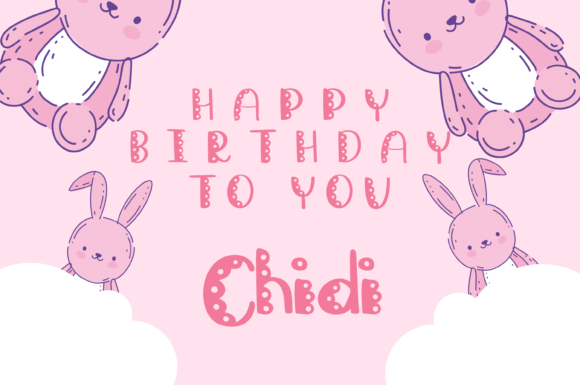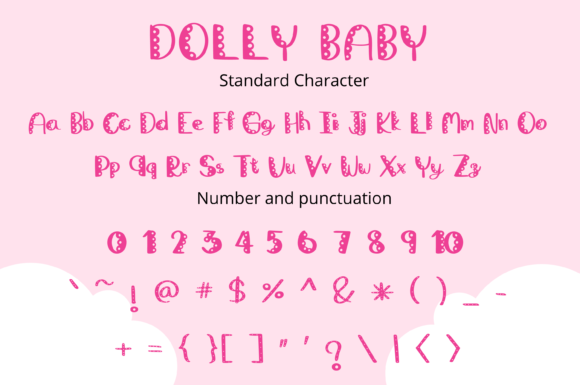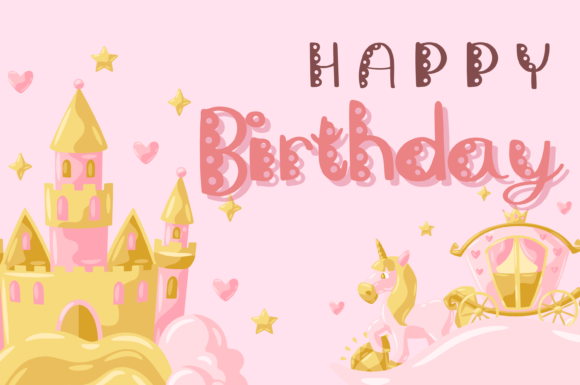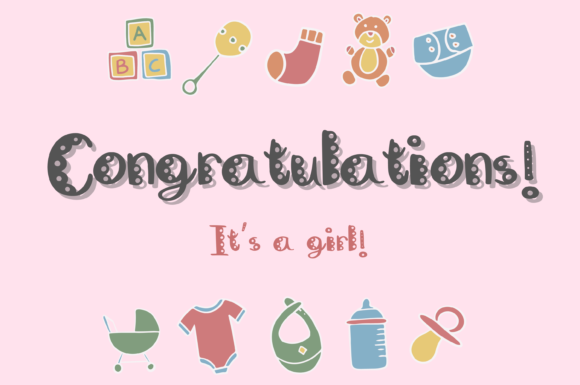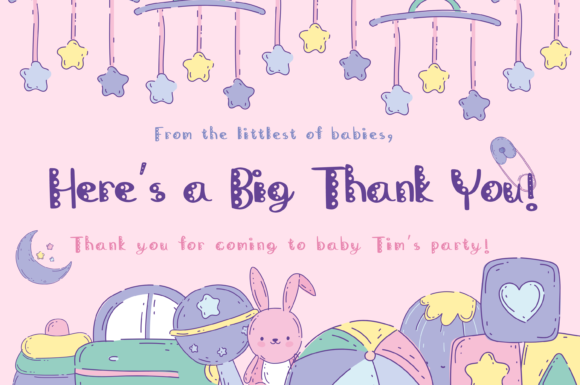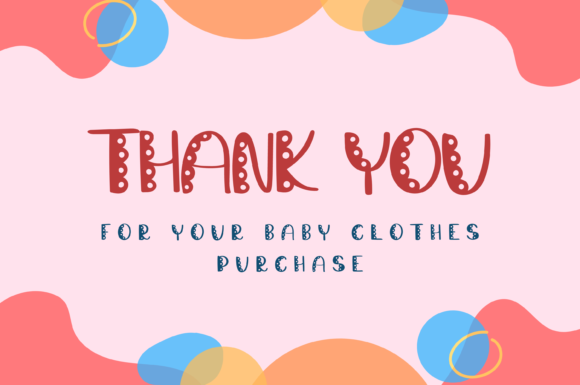
Dolly Baby Style Font: Elevate Your Designs with Whimsy and Style
Dolly Baby Style is a charming and fashionable font that can instantly elevate your creative projects. Its unique blend of whimsy and sophistication makes it an ideal choice for designers and crafters looking to add a touch of personality to their work. In this article, we’ll explore the features and benefits of Dolly Baby Style, and show you how to incorporate it into your designs to make them stand out.
The Characteristics of Dolly Baby Style Font
Dolly Baby Style is a beautifully crafted font that boasts a distinctive and eye-catching appearance. Its whimsical design makes it perfect for projects that require a playful and creative touch. The font features:
- Unique letterforms: Each letter in Dolly Baby Style has been carefully designed to showcase a distinctive and stylish appearance.
- Whimsical flair: The font’s playful and whimsical design makes it perfect for projects that require a touch of personality.
- High legibility: Despite its unique design, Dolly Baby Style remains highly legible, making it suitable for use in a wide range of projects.
Benefits of Using Dolly Baby Style Font
Dolly Baby Style offers a range of benefits that make it an attractive choice for designers and crafters. Some of the key advantages of using this font include:
- Versatility: Dolly Baby Style can be used in a wide range of projects, from digital designs to print materials.
- Creativity: The font’s unique design encourages creativity and can help you to develop innovative and eye-catching designs.
- Time-saving: With Dolly Baby Style, you can quickly and easily create professional-looking designs without spending hours on typography.
How to Use Dolly Baby Style Font in Your Designs
Using Dolly Baby Style in your designs is easy. Here are a few tips to get you started:
- Pair it with complementary fonts: Combine Dolly Baby Style with other fonts to create a unique and visually appealing typography.
- Experiment with colors and textures: Add depth and interest to your designs by experimenting with different colors and textures.
- Use it in a variety of projects: Dolly Baby Style can be used in a wide range of projects, from business cards to social media graphics.
Examples of Projects that Dolly Baby Style Font is Perfect For
Dolly Baby Style is a versatile font that can be used in a wide range of projects. Here are a few examples:
- Branding and logos: Use Dolly Baby Style to create a unique and memorable logo for your business or brand.
- Social media graphics: Add a touch of personality to your social media graphics with Dolly Baby Style.
- Print materials: Use Dolly Baby Style in print materials such as business cards, brochures, and flyers.
- Crafting and DIY projects: Dolly Baby Style is perfect for crafters and DIY enthusiasts looking to add a personal touch to their projects.
Dolly Baby Style is a charming and stylish font that can add a touch of whimsy and personality to your designs. Its versatility, creativity, and high legibility make it an attractive choice for designers and crafters. With Dolly Baby Style, you can create unique and eye-catching designs that stand out from the crowd. So why not give it a try and see how it can elevate your designs?